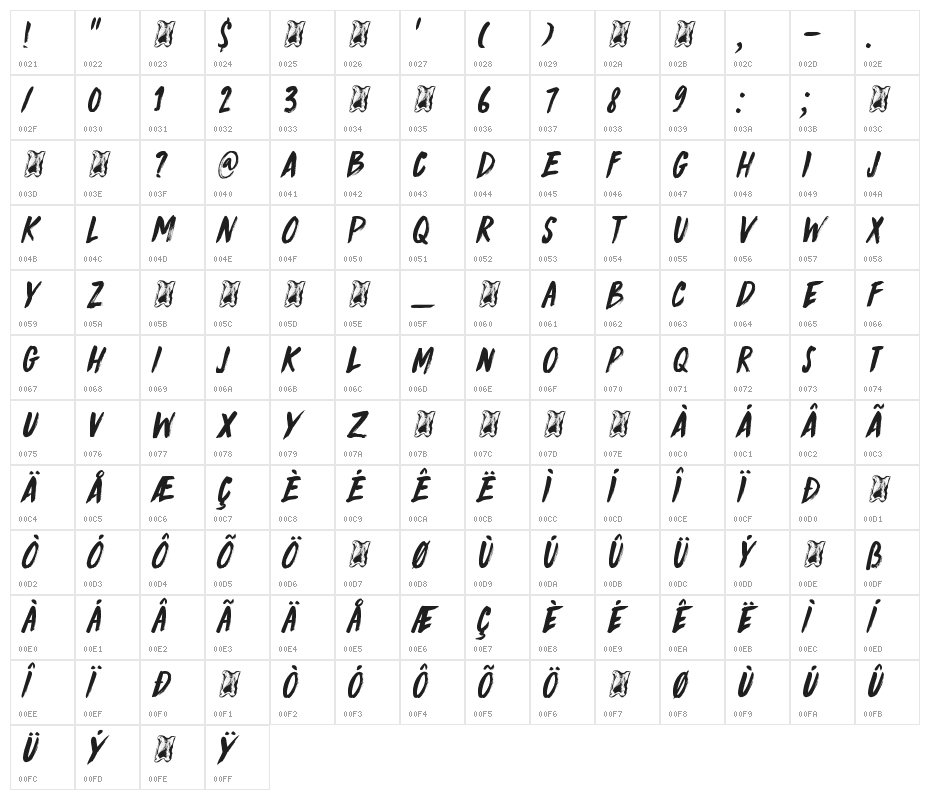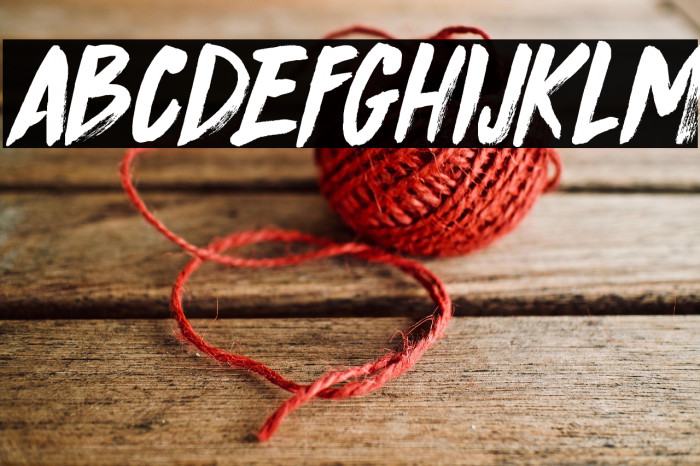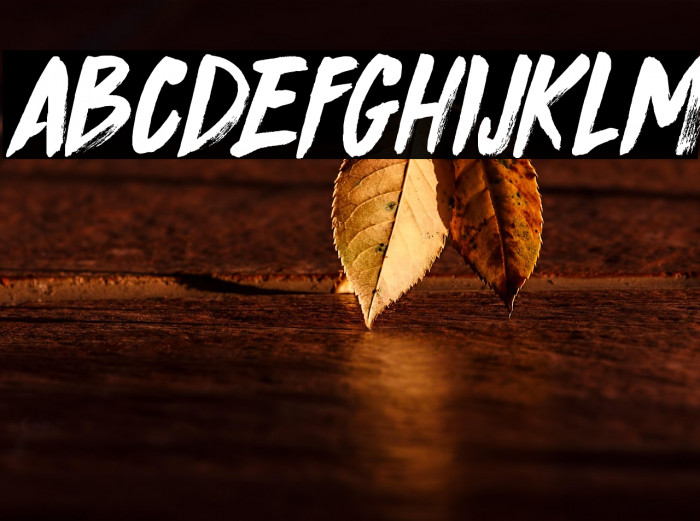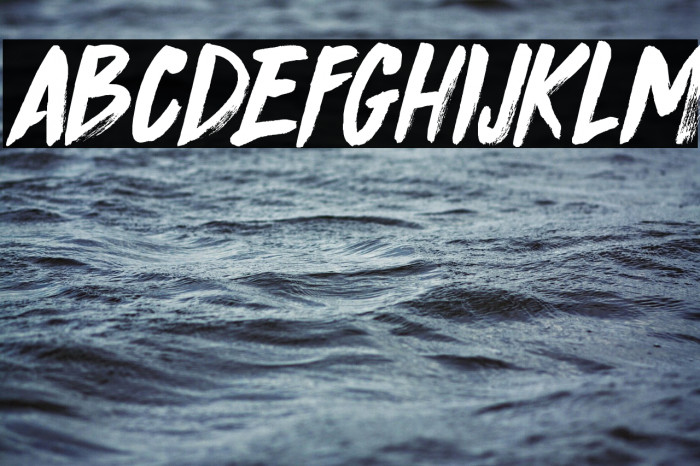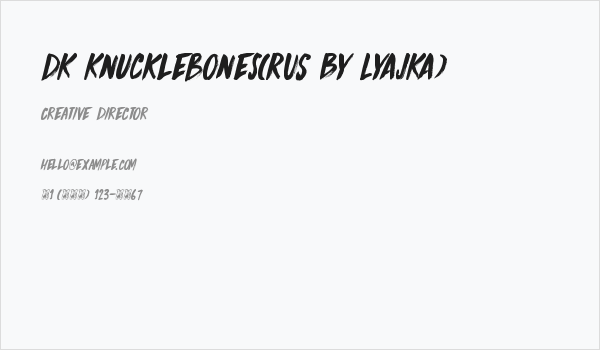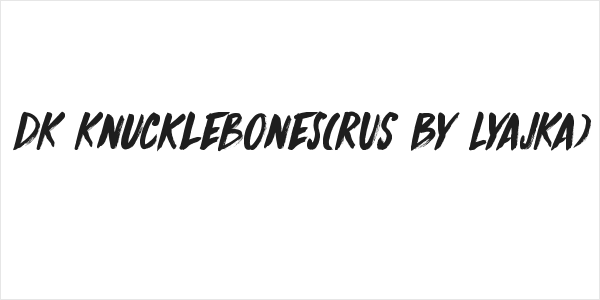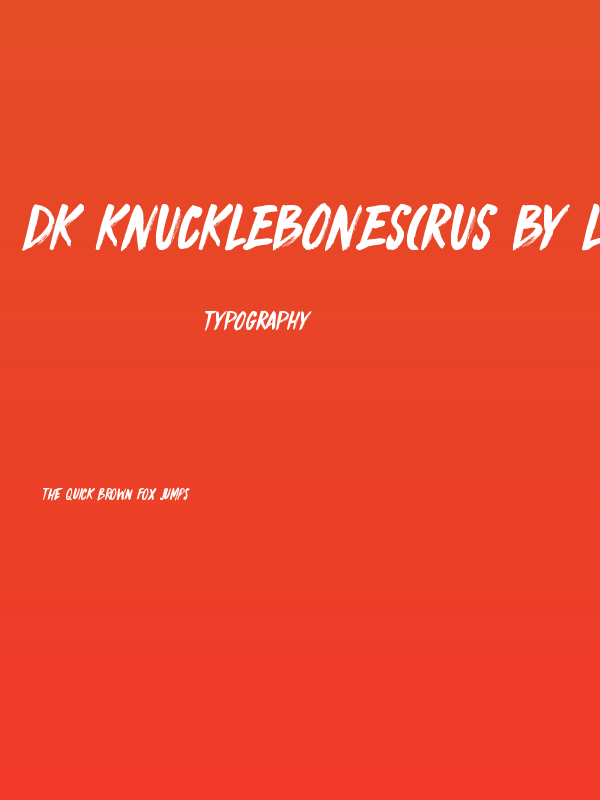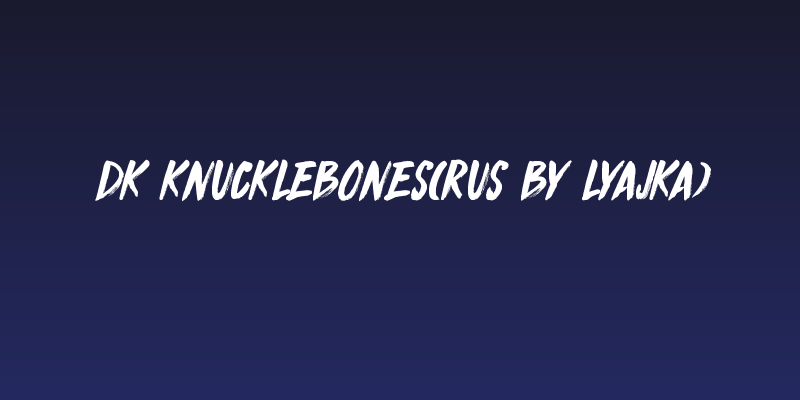
DK Knucklebones(RUS BY LYAJKA) Font
DK Knucklebones(RUS BY LYAJKA) Description
This font features a bold and expressive brush style, characterized by its dynamic strokes and textured appearance. The letters have an energetic and handcrafted feel, with irregular edges that give a sense of movement and spontaneity. The uppercase and lowercase letters maintain a consistent style, while the numbers and special characters integrate seamlessly with the overall design. The font's boldness and artistic flair make it stand out, capturing attention with its dramatic and impactful presence.
| Overall Style | Modern, Artistic |
| Proposed Projects | Ideal for projects that require a strong visual impact, such as posters, branding, album covers, and creative advertising. |